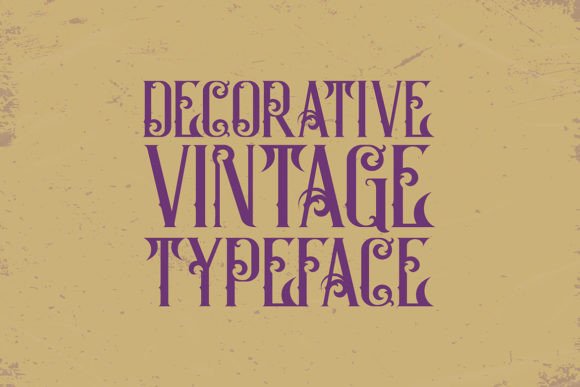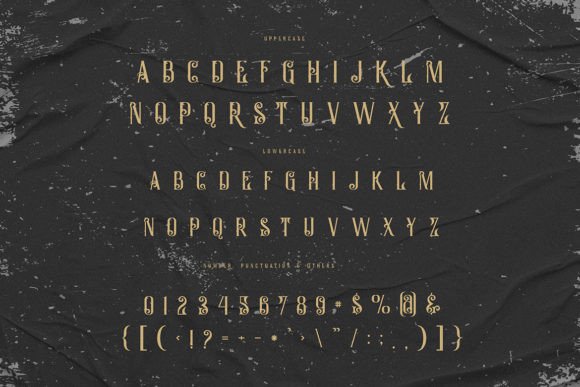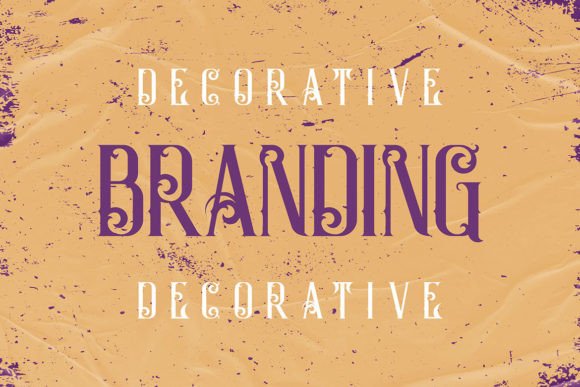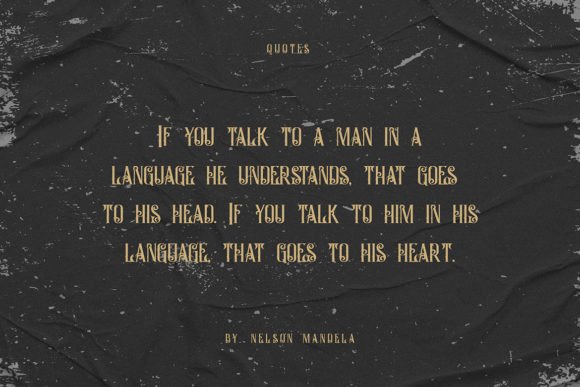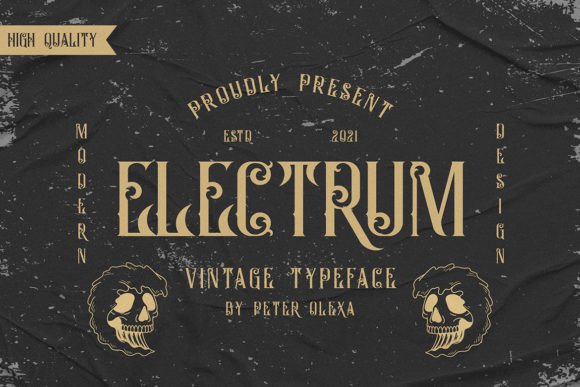
Electrum Font: Elevate Your Designs with Timeless Elegance
Are you searching for a font that exudes sophistication, elegance, and a touch of vintage charm? Look no further than Electrum Font. This stylish serif font is perfect for designers and crafters looking to add a dash of old-world glamour to their branding, packaging, and editorial designs. In this article, we’ll dive into the world of Electrum Font, exploring its features, benefits, and uses, as well as provide tips on how to make the most of this stunning typeface.
What is Electrum Font?
Electrum Font is a vintage-inspired serif font that boasts an elegant and refined design. Its classic appeal is reminiscent of traditional printing methods, evoking a sense of nostalgia and sophistication. The font’s intricate details and subtle flair make it perfect for designs that require a touch of luxury and refinement.
Key Features of Electrum Font
- Timeless Appeal: Electrum Font’s classic design ensures that it remains relevant, even in modern times. Its timeless appeal makes it perfect for designs that require a vintage or retro feel.
- Elegant and Refined: The font’s elegant and refined design makes it suitable for high-end branding, packaging, and editorial designs.
- Serif Details: Electrum Font features intricate serif details that add a touch of sophistication and luxury to any design.
- Versatile: This font is versatile and can be used for a wide range of design projects, from logos and branding to packaging and editorial design.
Benefits of Using Electrum Font
So, why choose Electrum Font for your design projects? Here are just a few benefits of using this stunning typeface:
- Adds Sophistication and Class: Electrum Font’s elegant design adds a touch of sophistication and class to any project, making it perfect for high-end designs.
- Evokes Vintage Charm: The font’s vintage-inspired design evokes a sense of nostalgia and old-world charm, making it perfect for designs that require a retro or vintage feel.
- Enhances Brand Identity: Electrum Font can help enhance your brand identity by adding a touch of elegance and sophistication to your designs.
- Easy to Read: Despite its intricate details, Electrum Font is easy to read, making it perfect for body text and editorial designs.
Uses of Electrum Font
Electrum Font is a versatile typeface that can be used for a wide range of design projects, including:
- Branding and Logos: Use Electrum Font to create elegant and sophisticated logos that add a touch of vintage charm to your brand identity.
- Packaging Design: Add a touch of luxury and refinement to your packaging designs with Electrum Font.
- Editorial Design: Use Electrum Font for editorial designs, such as magazines, newspapers, and books, to add a touch of elegance and sophistication.
- Stationery and Invitations: Electrum Font is perfect for creating elegant stationery and invitations that require a touch of vintage charm.
Tips for Using Electrum Font
Here are a few tips for using Electrum Font to get the most out of this stunning typeface:
- Use it Sparingly: Electrum Font is a elegant and refined font, so use it sparingly to avoid overwhelming your design.
- Pair it with Sans-Serif Fonts: Pair Electrum Font with sans-serif fonts to create a striking contrast and add visual interest to your design.
- Experiment with Font Sizes: Experiment with different font sizes to create visual hierarchy and add emphasis to your design.
In conclusion, Electrum Font is a stunning serif font that adds a touch of elegance, sophistication, and vintage charm to any design project. Its timeless appeal, elegant design, and versatility make it perfect for branding, packaging, editorial design, and more. Whether you’re a designer or crafter, Electrum Font is a great addition to your font library. So, why not give it a try and elevate your designs with timeless elegance?